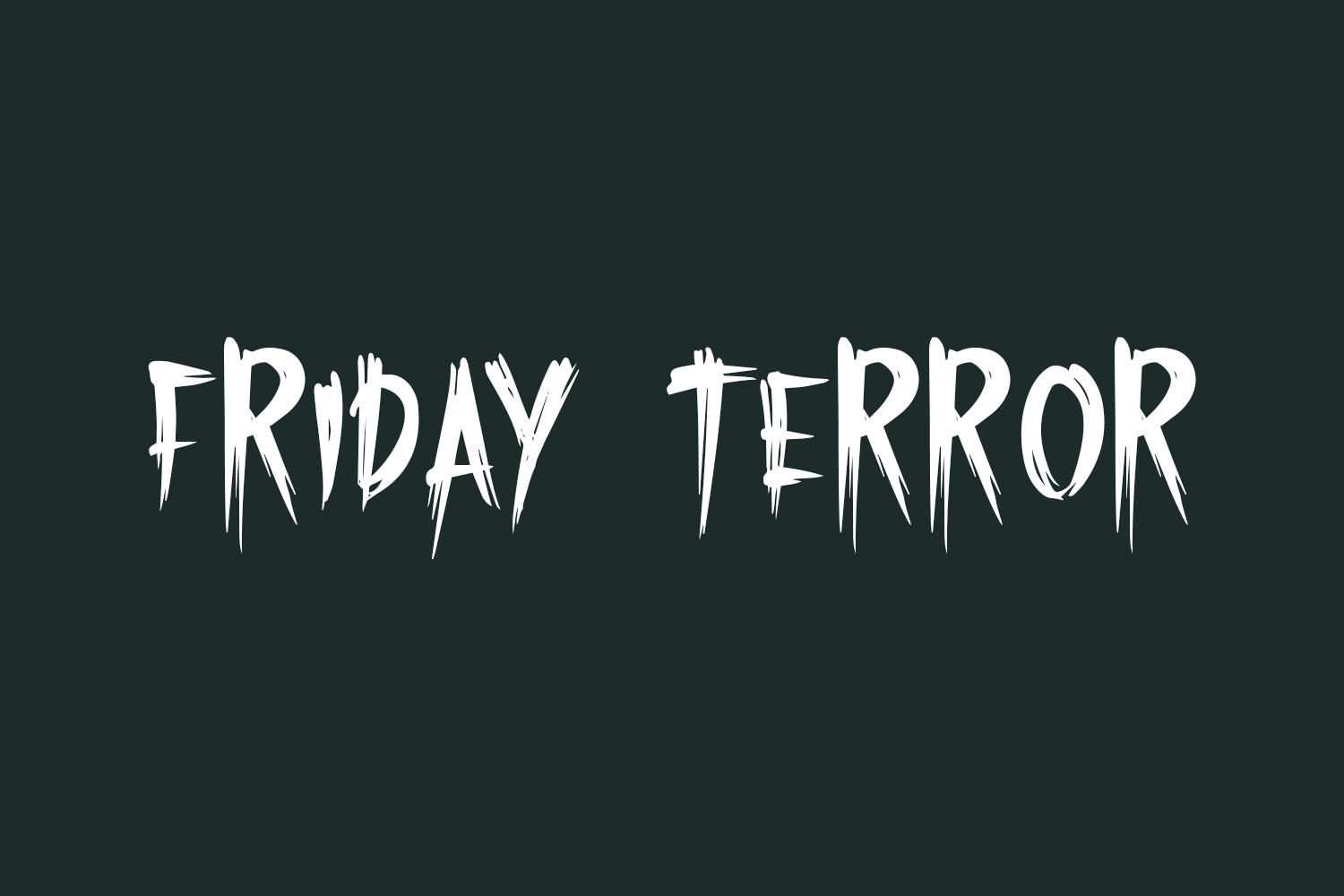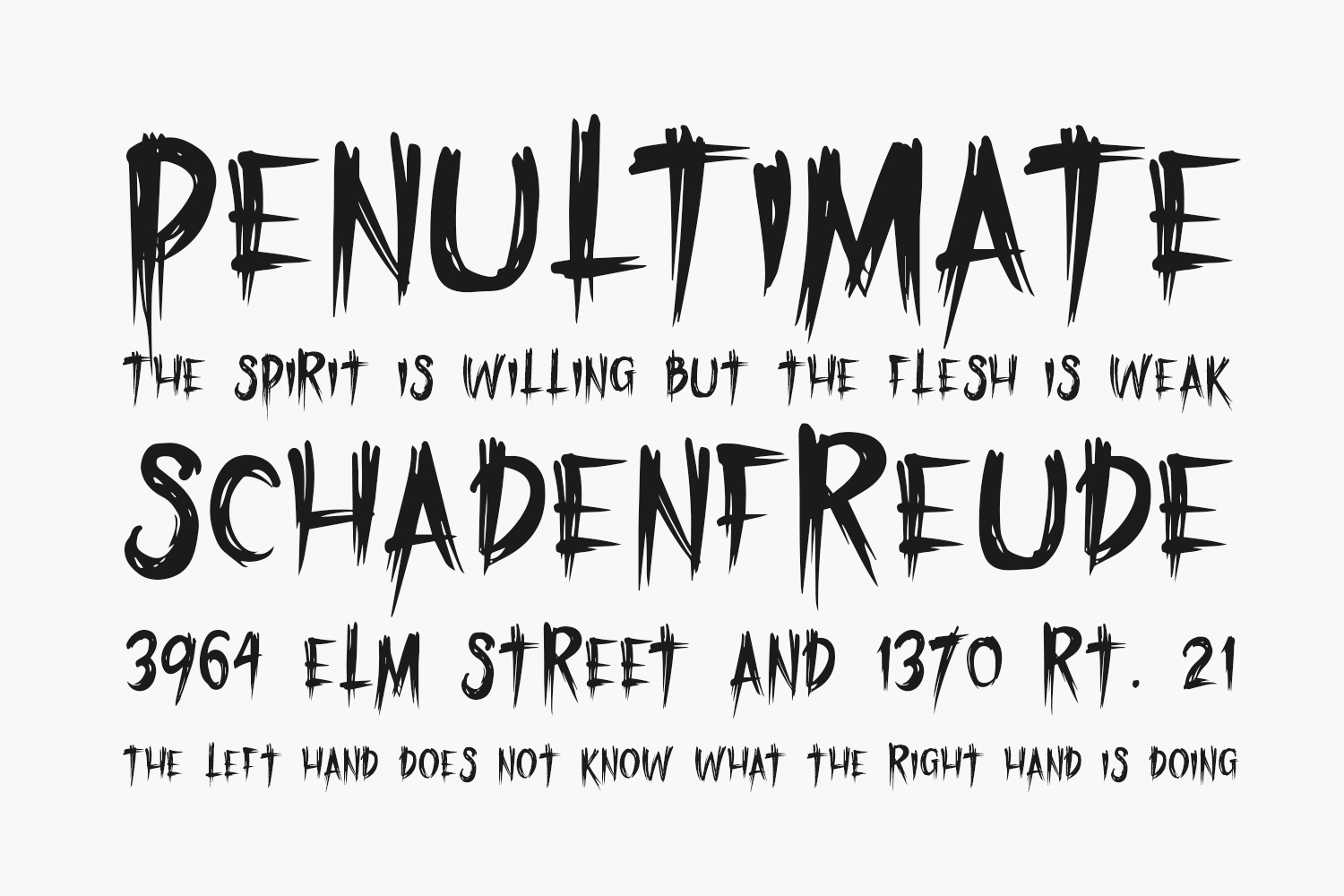
Friday Terror Free Font is a unique and attractive display font. Oddly enough, this font looks really good in a variety of contexts. Friday Terror Free Font was designed by Khurasan and is free for personal use only. Please purchase the full version for commercial use.